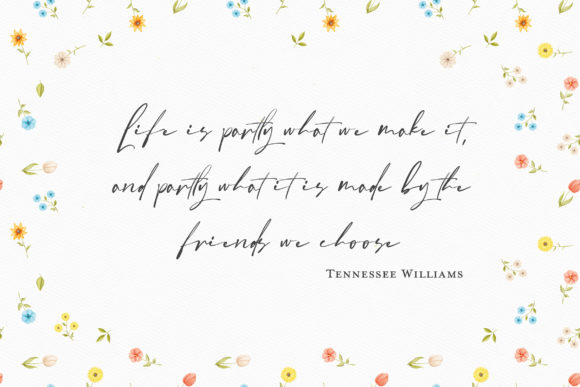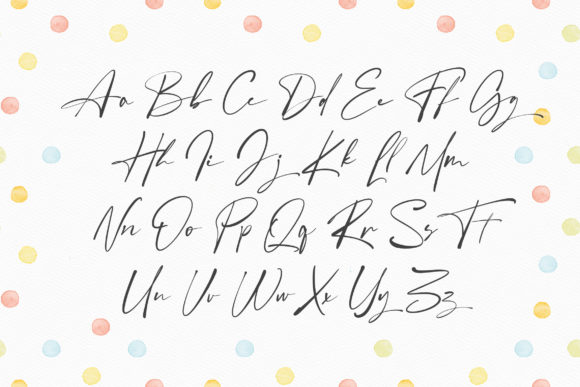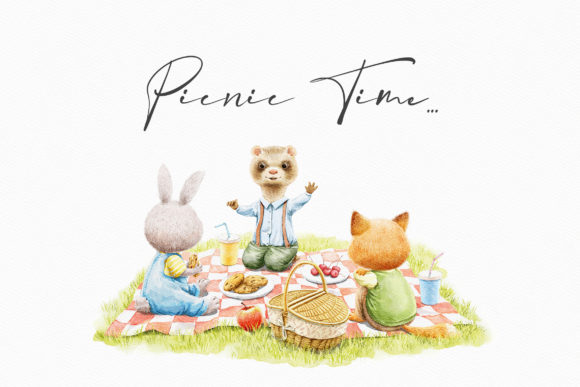
The Forever Friends Font: A Timeless Script for Luxury Projects
I’ll never forget the time I was working on a wedding invitation project, and my client asked me to create a custom logo that exuded elegance and sophistication. I spent hours scouring the internet for the perfect font, but nothing seemed quite right. That was until I stumbled upon the Forever Friends font. This beautiful, relaxed script font has been a game-changer for my design projects, and I’m excited to share it with you today! ✨
I’ve had the pleasure of working with the Forever Friends font on several projects, and here’s what I think:
- ✅ The font’s stylish letter shapes and contemporary twists make it perfect for luxury projects.
- ✨ The relaxed, handwritten feel adds a touch of warmth and personality to any design.
- ✅ The font is incredibly versatile and works well for a variety of applications, from elegant logos to social media headers.
While I adore the Forever Friends font, there are a few quirks to be aware of:
- ⚠️ The font can be a bit finicky when it comes to kerning, so be sure to adjust as needed.
- 🤔 Some of the glyphs and stylistic alternates can be a bit tricky to access, but I’ll cover that in the “how to use” guide below.
The Story Behind Forever Friends
The Forever Friends font was designed by a talented typographer who wanted to create a font that captured the essence of timeless elegance. The designer drew inspiration from classic script fonts, but with a modern twist. The result is a font that’s both stylish and approachable, perfect for luxury projects and everyday design needs.
| What is the Forever Friends font best used for? | The Forever Friends font is perfect for luxury projects, such as elegant logos, printed quotes, lovely wedding invitation cards, social media headers, product packaging, and more! |
| Is the Forever Friends font suitable for body text? | While the Forever Friends font is beautiful, it’s best used for headlines and titles. For body text, you may want to choose a font with better legibility. |